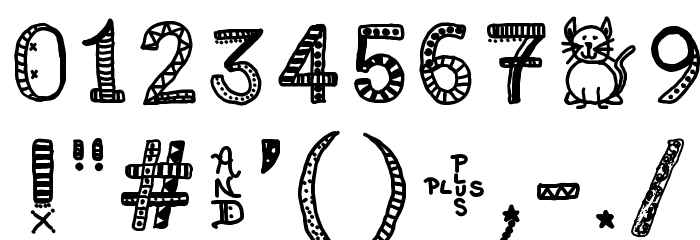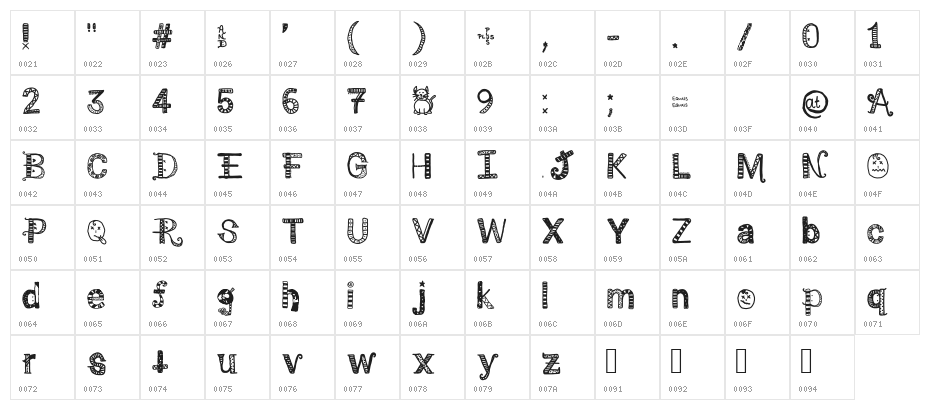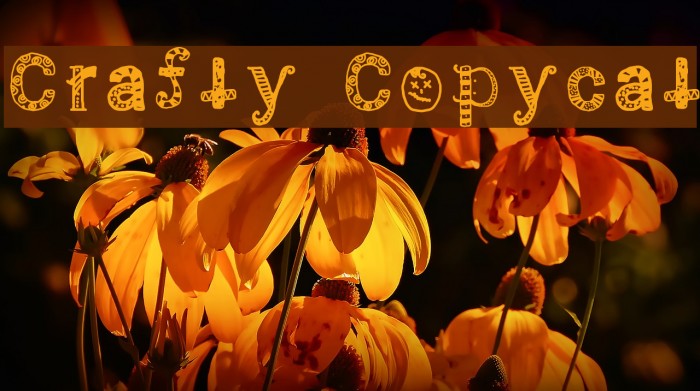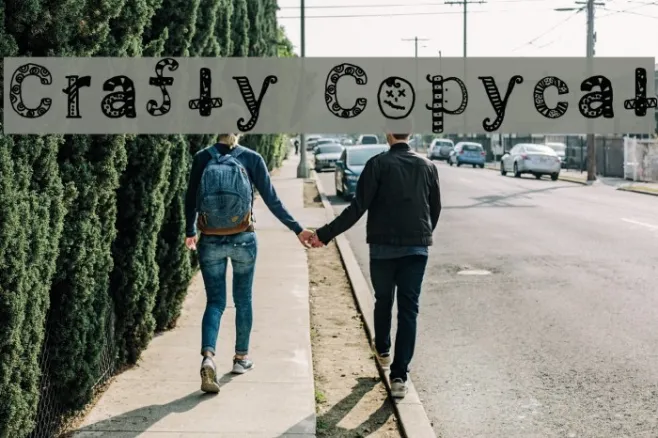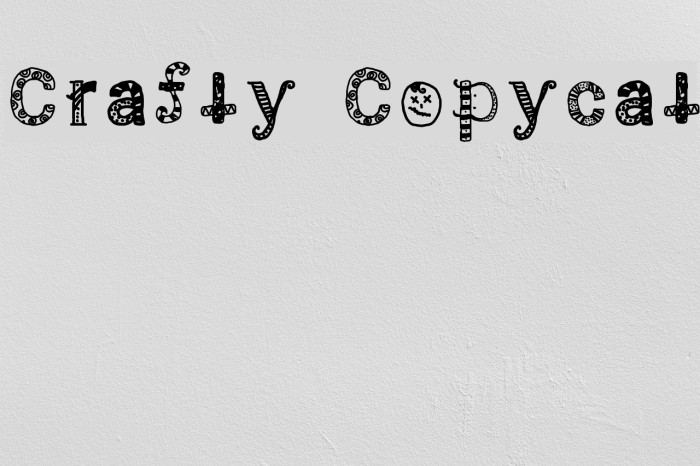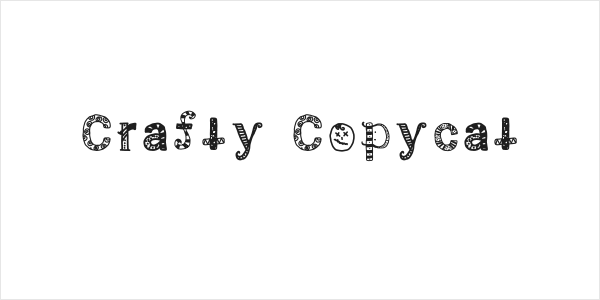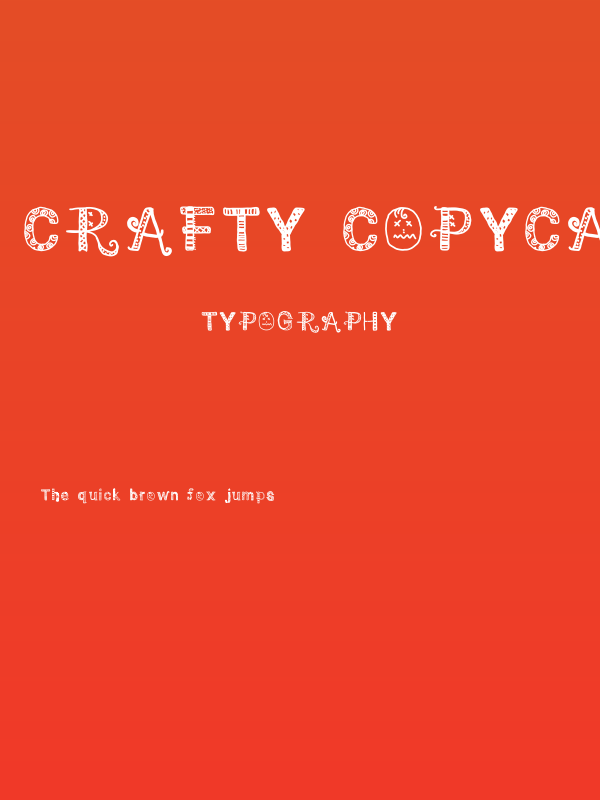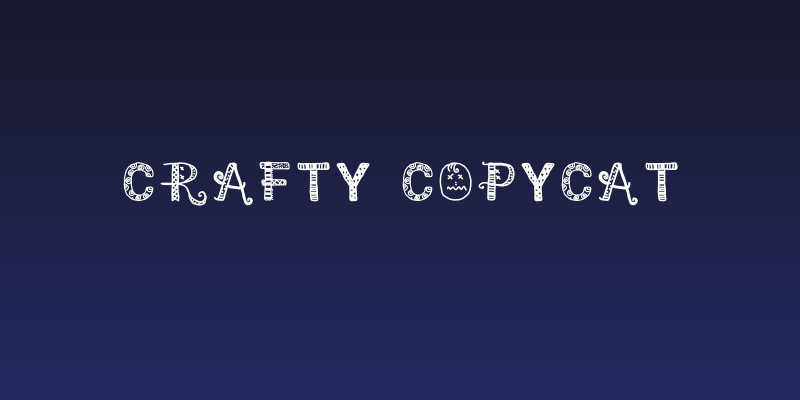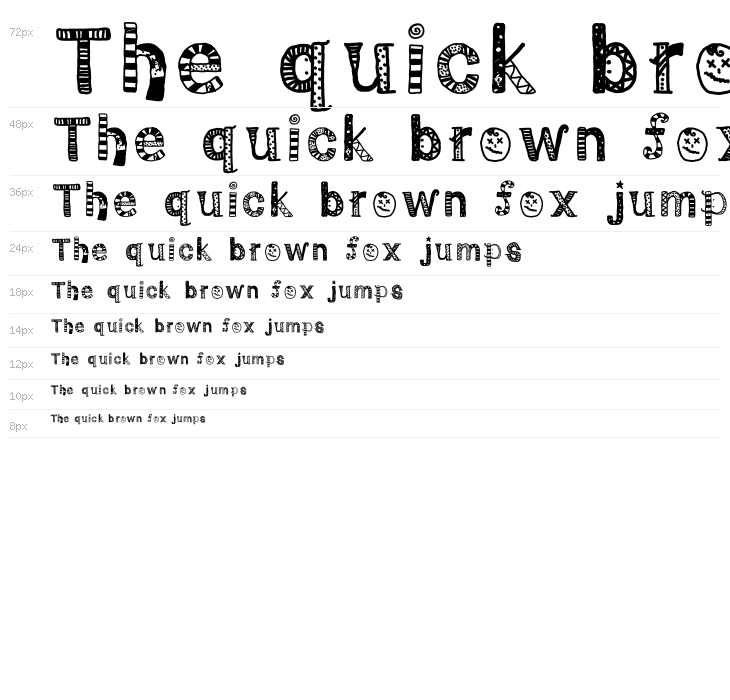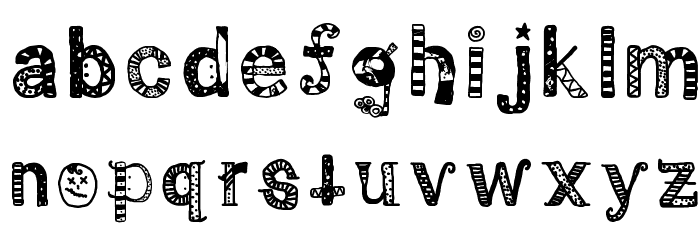
Crafty Copycat Font
Crafty Copycat Description
This whimsical and playful font features a variety of decorative elements within each character, such as stripes, dots, and swirls, giving it a handcrafted and artistic feel. The uppercase and lowercase letters are uniquely designed with intricate patterns that add a sense of fun and creativity. Numbers and special characters follow the same decorative style, making the font cohesive and visually engaging. The overall appearance is bold and eye-catching, perfect for projects that require a touch of personality and charm.
| Overall Style | Playful, Artistic, Whimsical |
| Use Case | Headlines, Posters, Creative Projects |
| Proposed Projects | Ideal for children's books, playful branding, creative posters, and DIY crafts. |